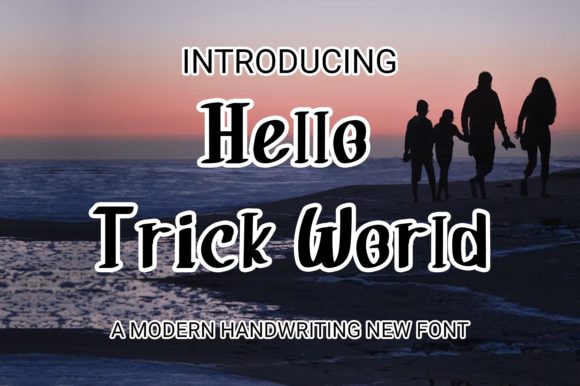
Embrace the enchanting allure of Hello Trick World Font, a captivating calligraphic creation that will ignite your artistic spirit and elevate your designs to new heights. This enchanting script font, meticulously crafted by the talented morningmondayy, exudes an irresistible charm that will captivate your audience.
Indulge in the whimsical world of Hello Trick World Font, where each letter dances with an effortless grace, creating an unforgettable visual experience. Its playful strokes and charming imperfections evoke a sense of warmth and authenticity that is sure to leave a lasting impression.
Unleash your creativity and let Hello Trick World Font guide you through a limitless spectrum of design possibilities. Imagine your Instagram posts adorned with its enchanting script, capturing the attention of your followers and leaving them spellbound. Or envision your DIY projects transformed into masterpieces, as this font adds a touch of magic to your handmade creations.
But the beauty of Hello Trick World Font extends far beyond its aesthetic appeal. It's a font that empowers you to express yourself freely and authentically. Whether you're a seasoned graphic designer or a budding artist, this font will become an indispensable tool in your creative arsenal.
Picture your designs adorned with Hello Trick World Font, each stroke conveying a message of joy, whimsy, and effortless elegance. Its versatility knows no bounds, seamlessly complementing a myriad of design styles and concepts. Let your imagination soar and witness the transformative power of this enchanting font.